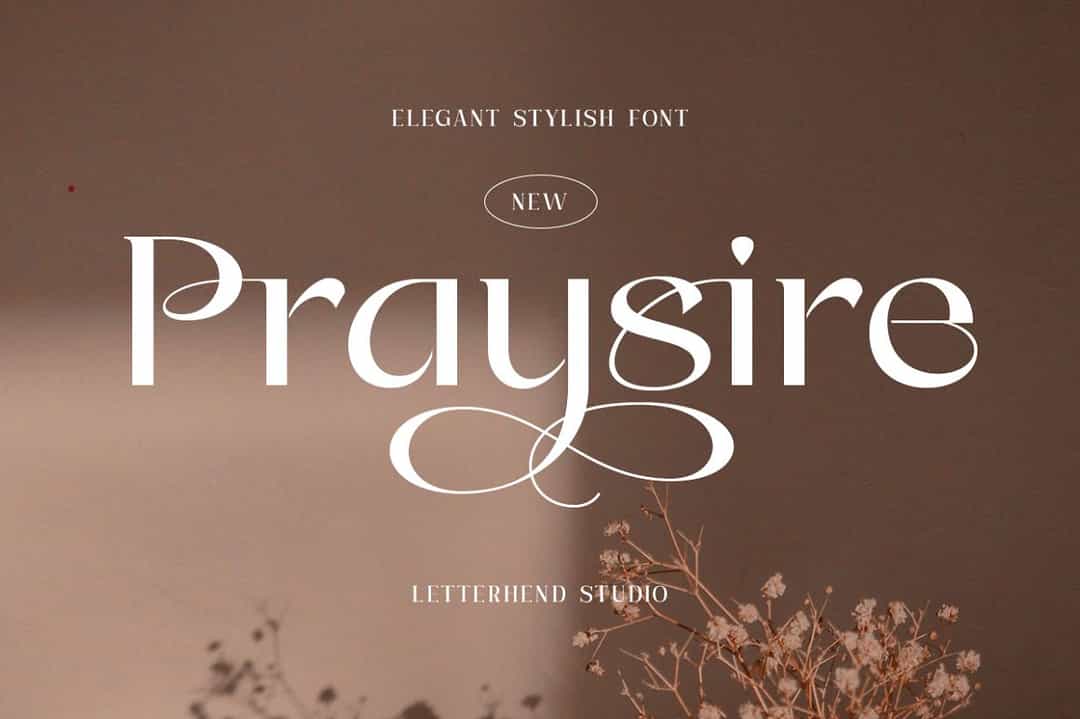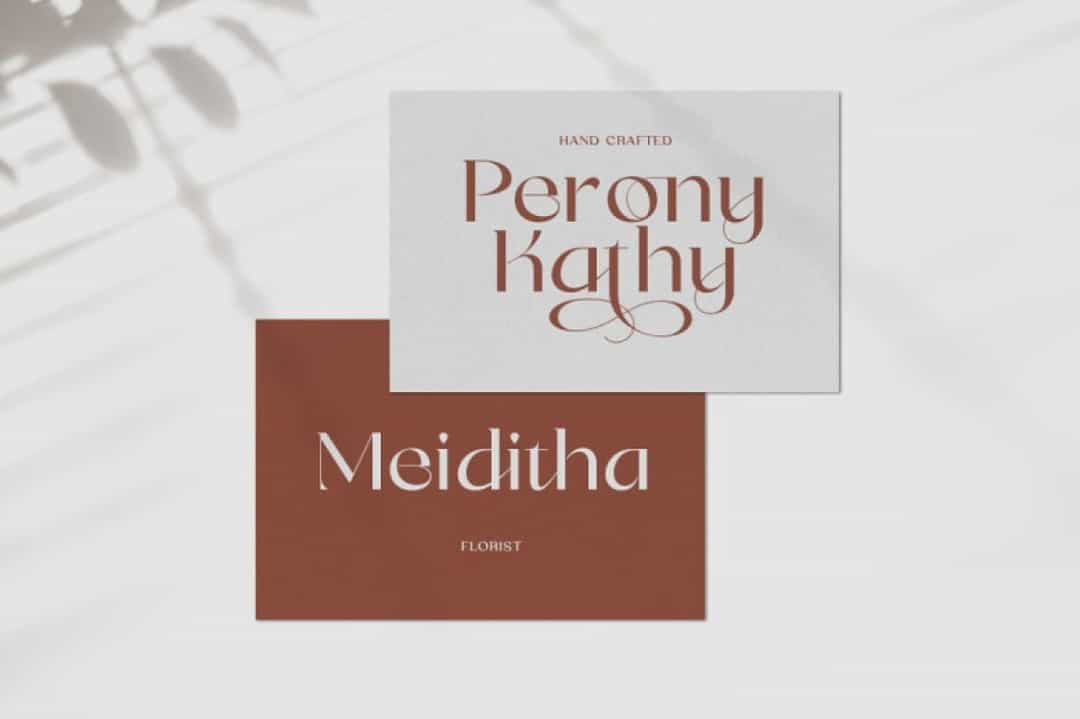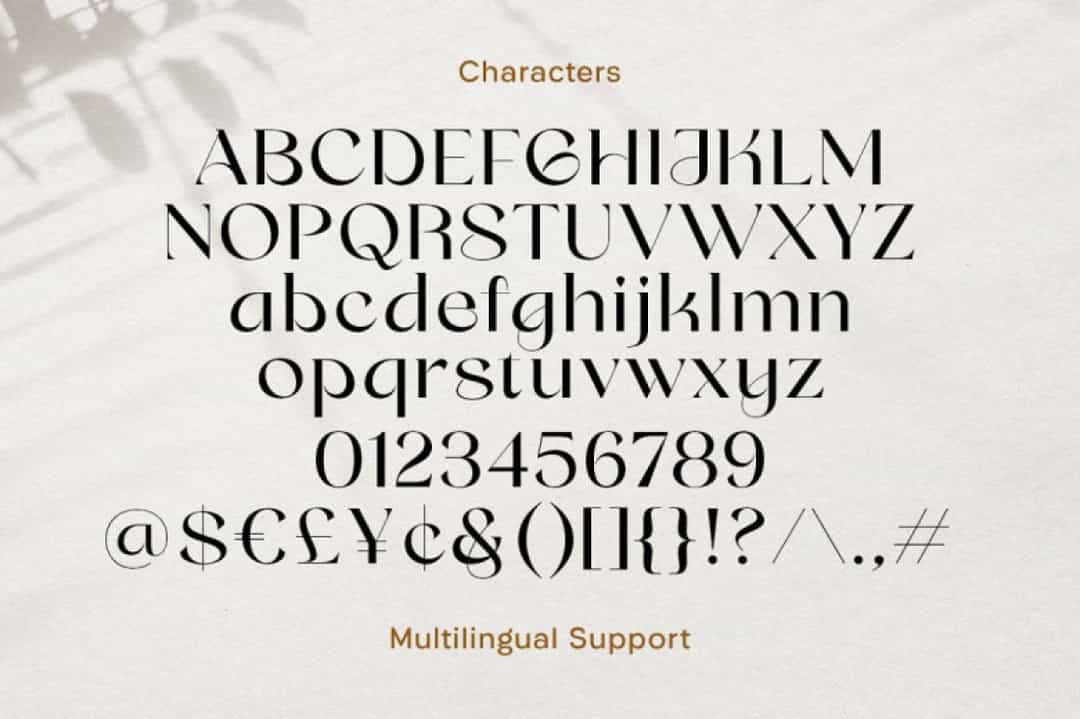
Discover Praysire Font, part of the Sans Serif collection—a versatile and unique font perfect for adding a personal touch to your projects. Download it for free and enjoy crafting designs with style, from invitations to social media posts. This font is available exclusively for personal use, giving you the freedom to create without limits. Unlock your creativity with Praysire Font today!
Praysire is a stylish sans-serif font with exquisite swashes. With multiple alternative fonts to experiment with and its distinctive letter designs, Praysire provides endless creative options! Type away!